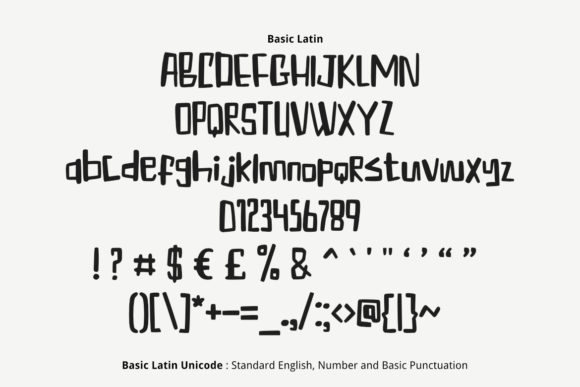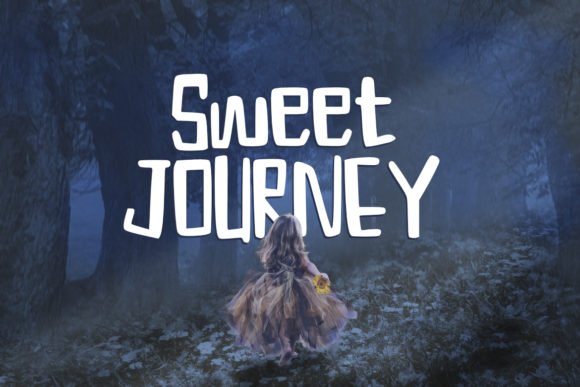
Introduction to King Crayon Font
King Crayon is an incredibly cute and cartoon like display font.
Whether youโre using it for crafting, digital designing, presentations or greeting cards making, itโs perfect .
Key Features of King Crayon Font
Why Choose King Crayon Font?